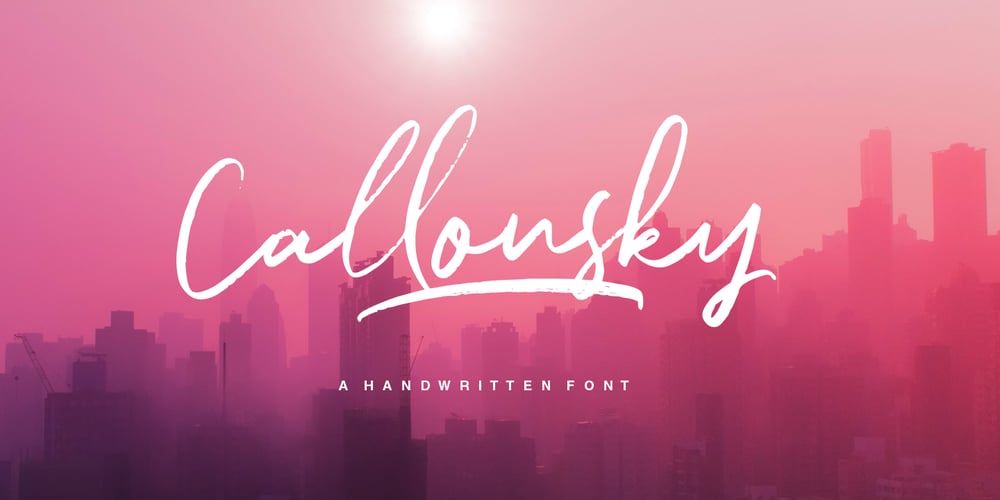
Callonsky Script
Callonsky Script font
Callonsky Script Font Family was designed by Hendry Juanda, Sarid Ezra and published by Letterhend. Callonsky Script contains 1 styles and family package options. Introducing, Callonsky, a romantic modern script with a twist of fun! The natural hand writing script is suitable for you who needs a typeface for headline, logotype, apparel, invitation, branding, packaging, advertising etc. This typeface is comes in uppercase, lowercase, punctuations, symbols & numerals, stylistic set alternate, ligatures, etc also support multilingual. It also already PUA Encoded.